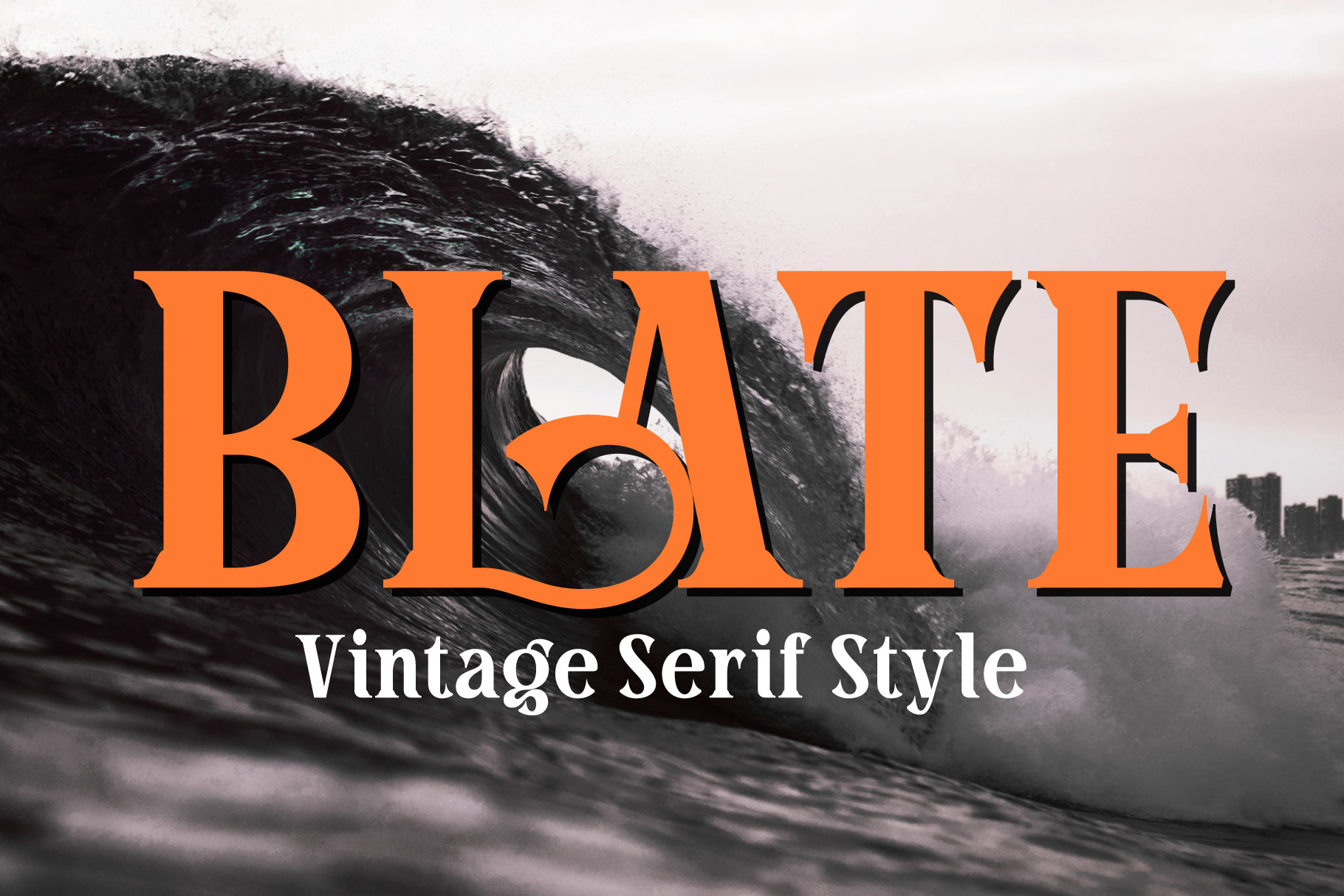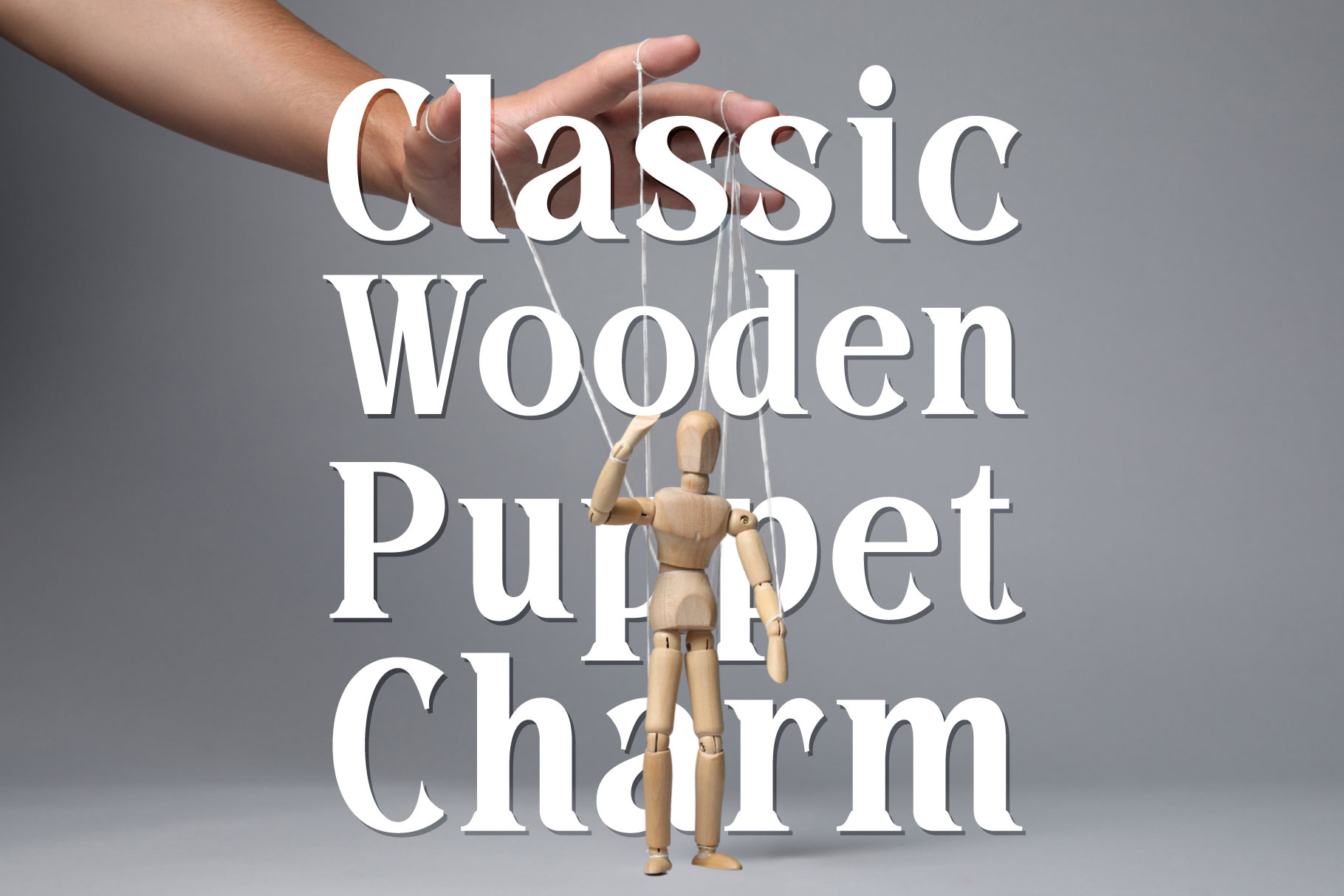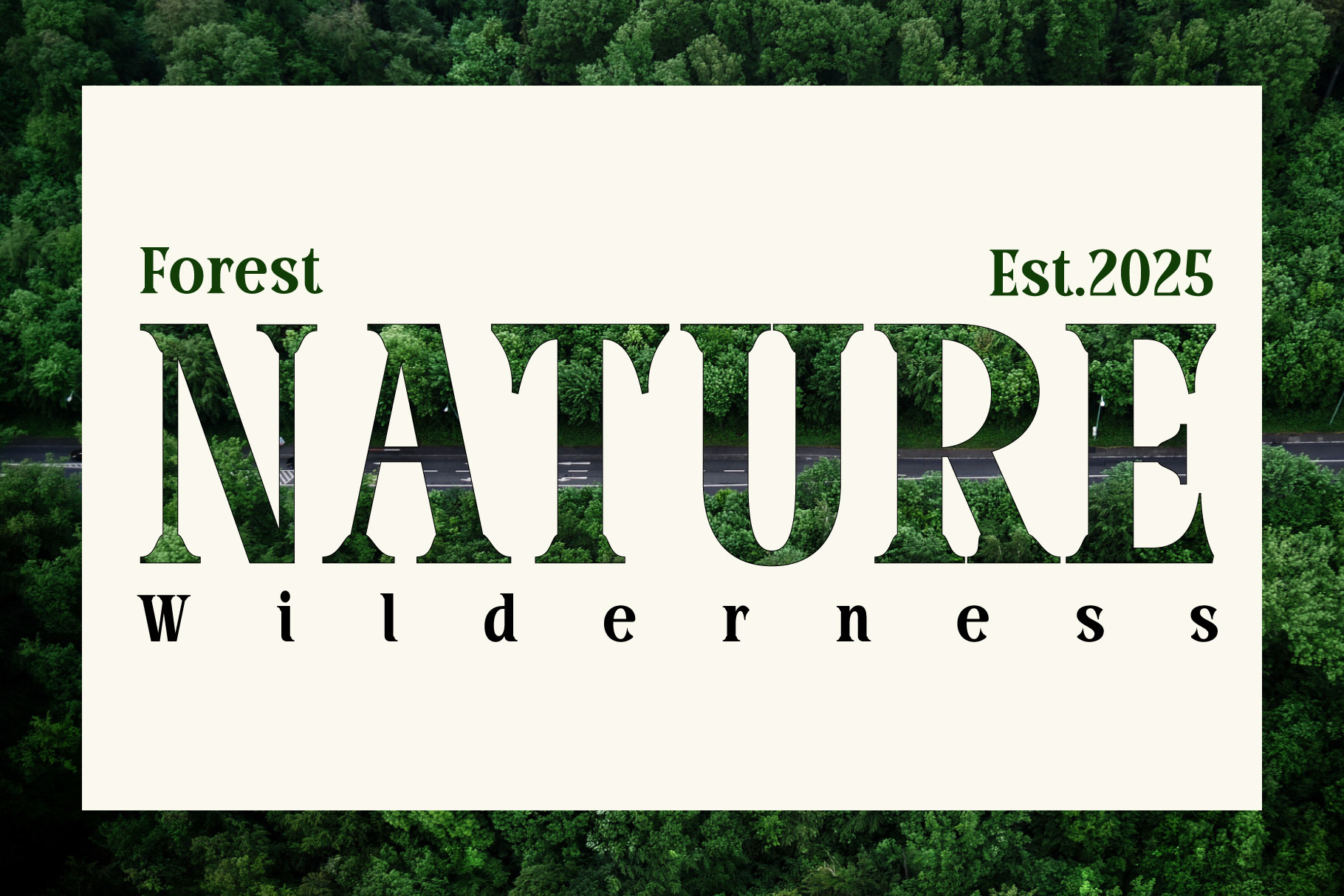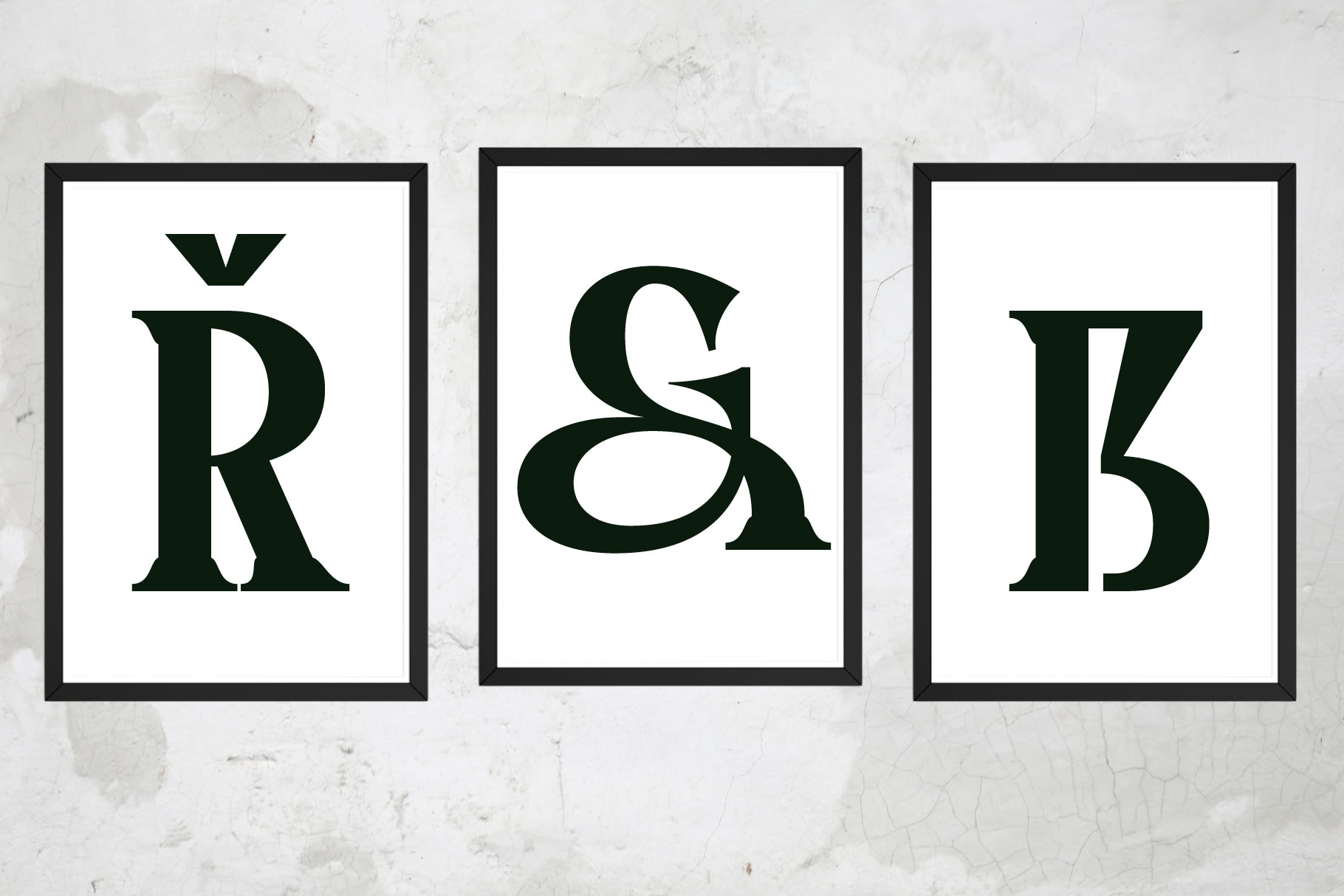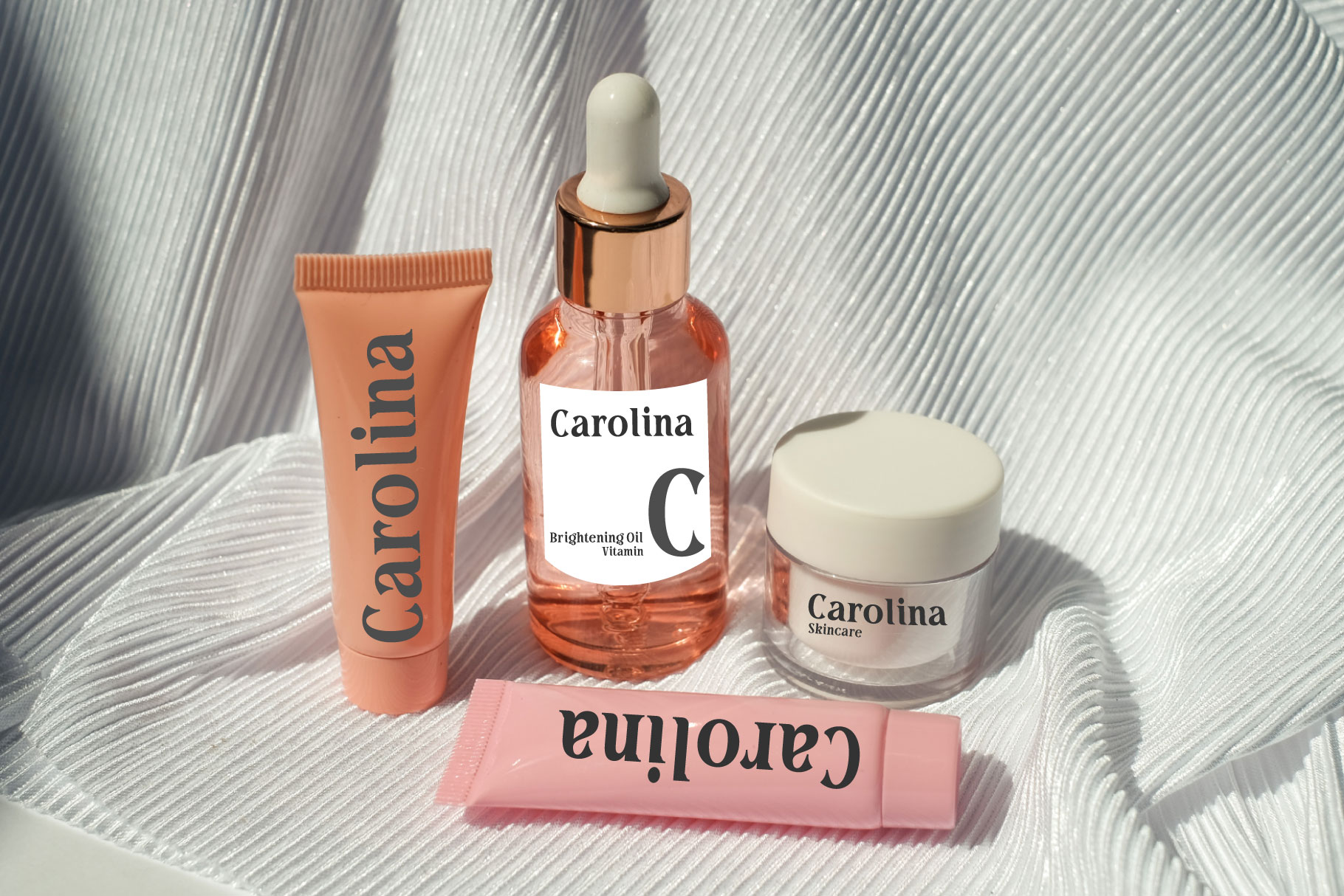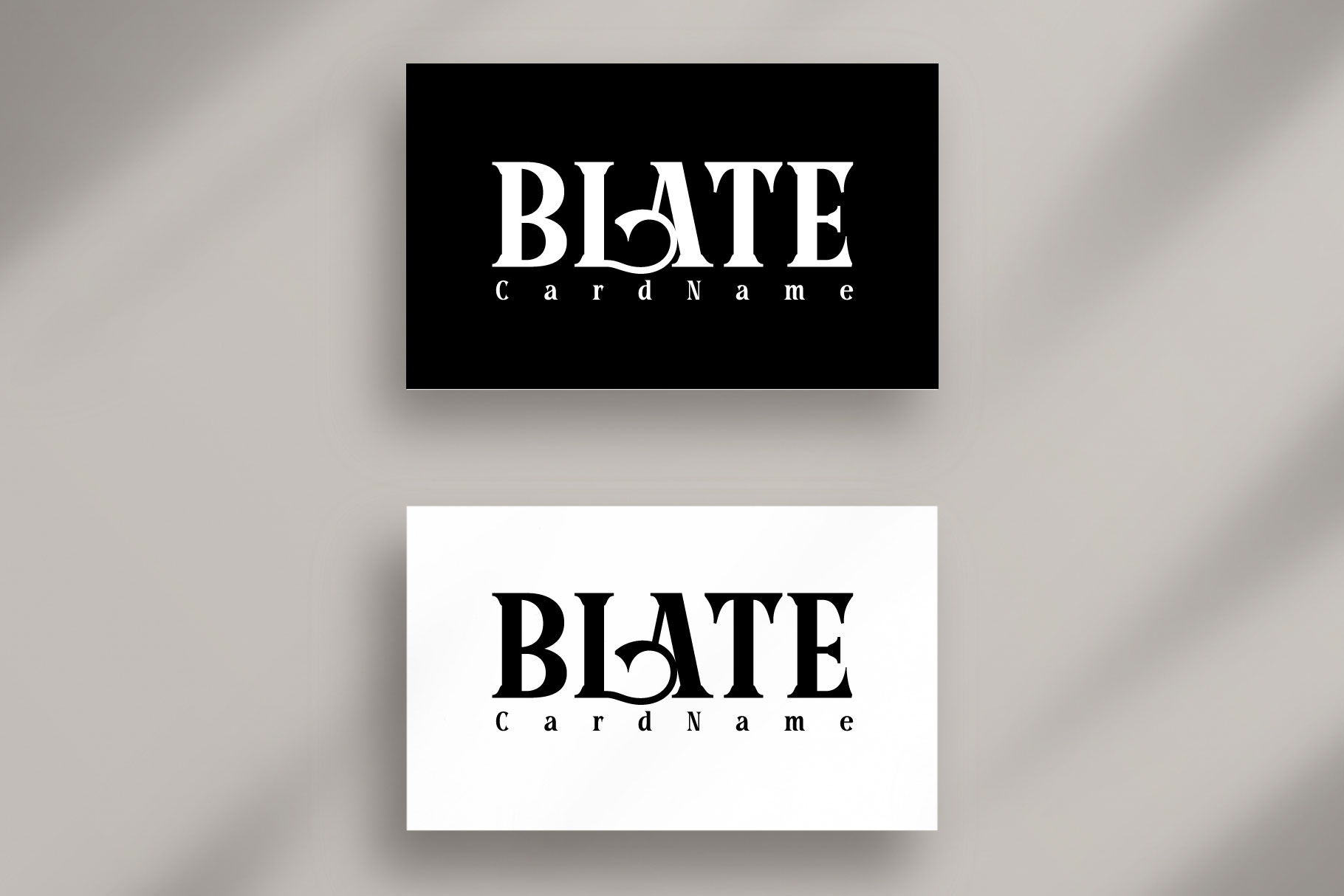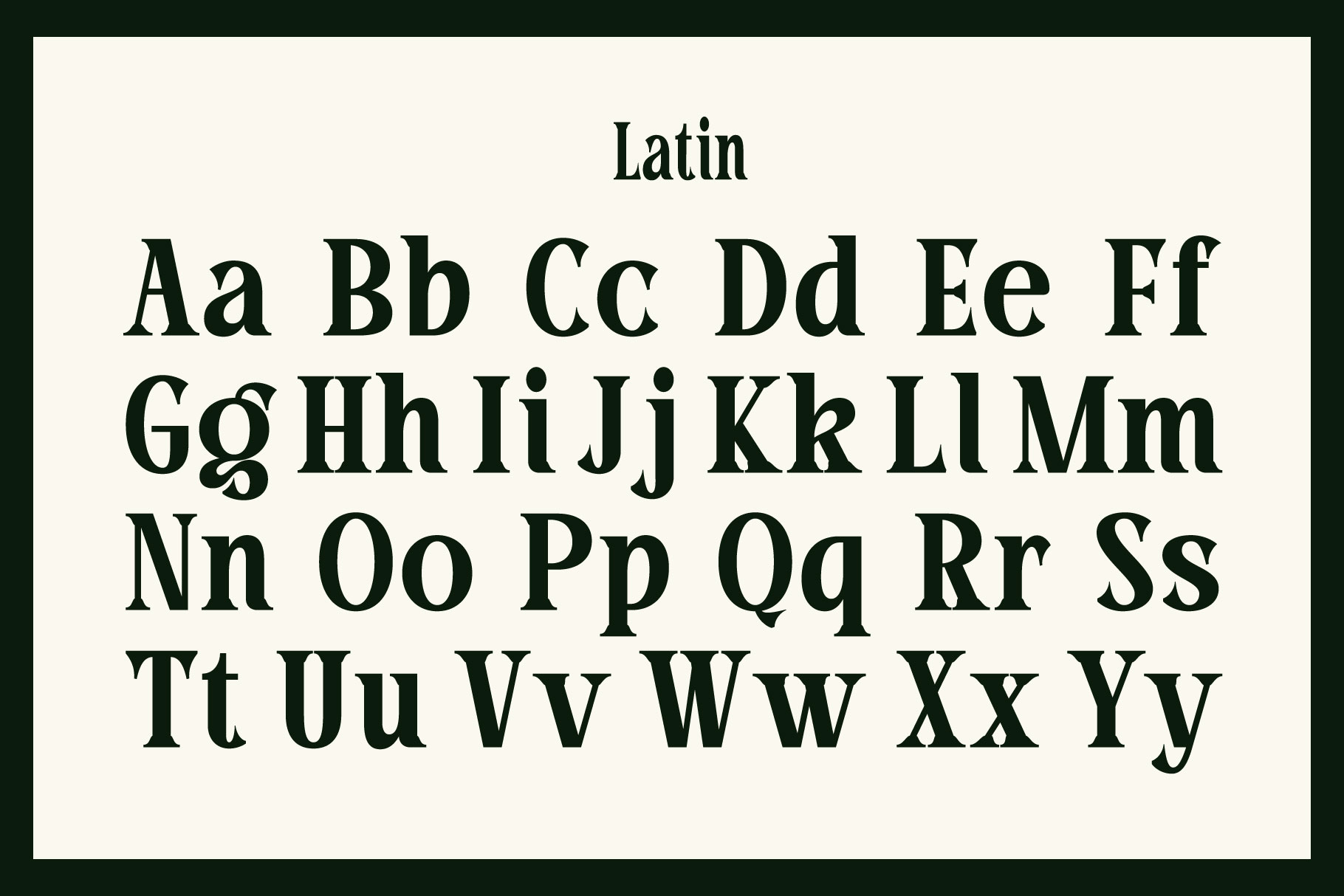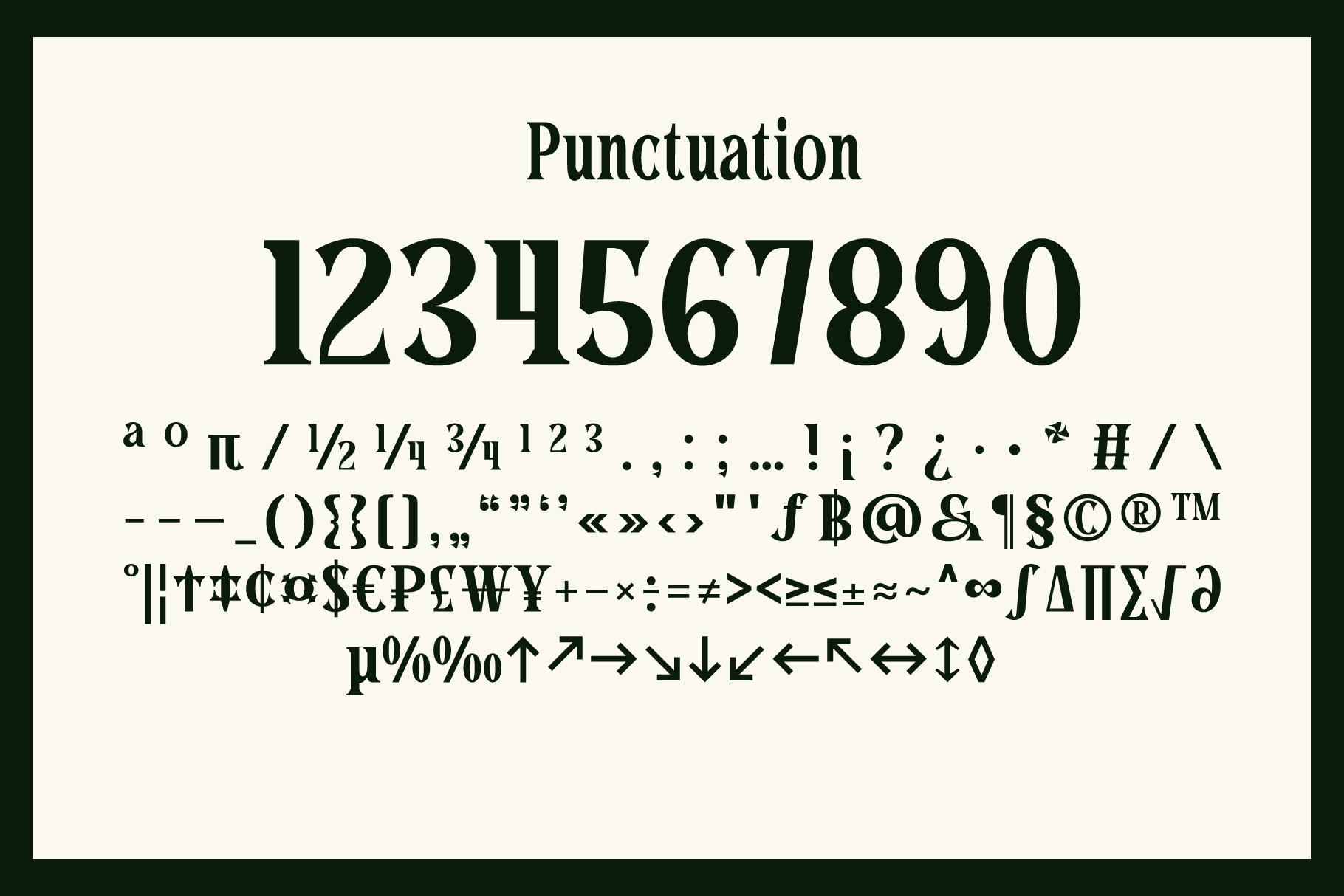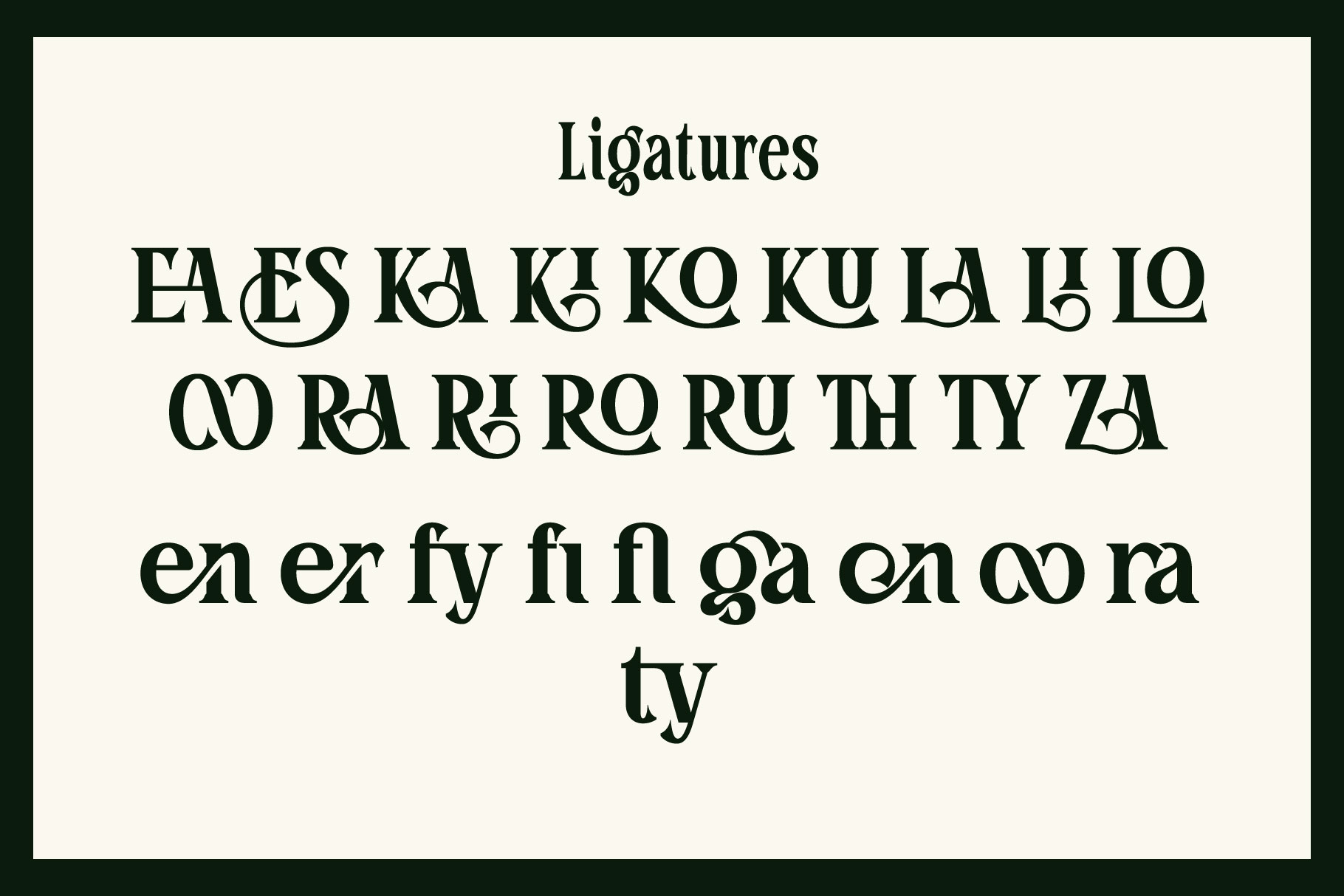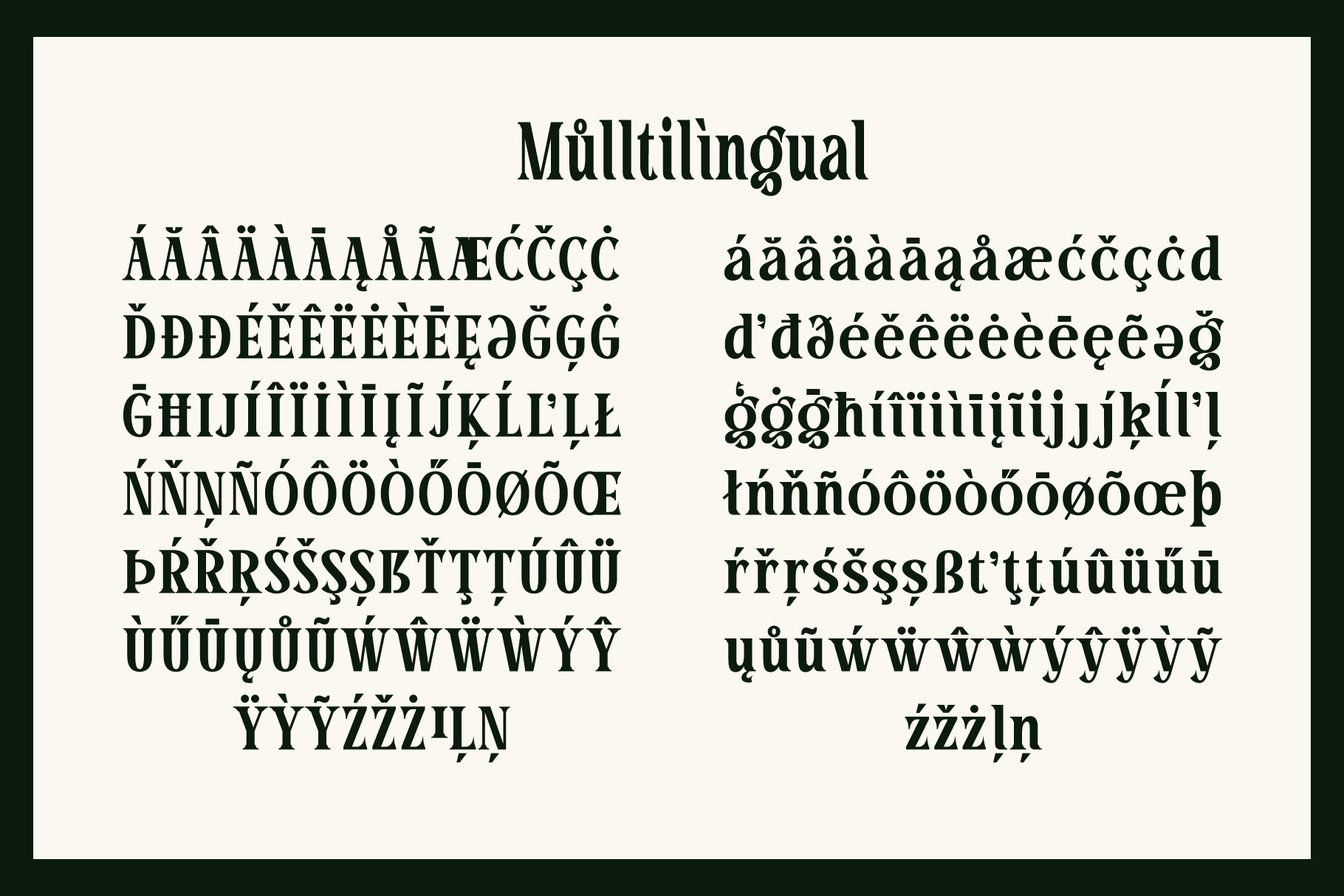
Blate - Bold Vintage Display Serif with Elegant Ligatures
Blate is a commanding vintage-inspired display serif typeface that strikes a harmonious balance between bold presence and refined elegance. Characterized by high-contrast strokes and robust, bracketed serifs, this typeface draws inspiration from mid-century editorial design. Its generous x-height and tight tracking make it exceptionally well-suited for high-impact headlines, luxury packaging, and boutique branding.
The font features a comprehensive set of discretionary ligatures, adding a bespoke, calligraphic touch to modern layouts. From the sharp wedge terminals to the graceful swash connections, every glyph is meticulously crafted for legibility and aesthetic appeal. It is an ideal choice for designers seeking to infuse character and authority into their work.